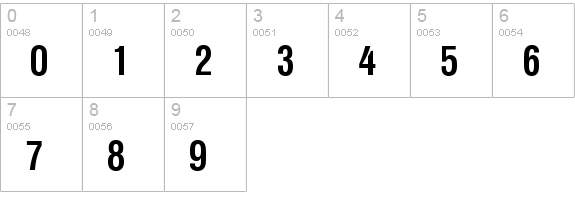
Olympia-DemiBoldCond Font Details
Olympia-DemiBoldCond is a versatile and modern font that strikes the perfect balance between sophistication and readability. Its bold and condensed design exudes confidence and authority, making it ideal for headlines, titles, and other attention-grabbing text. With its clean lines and sharp edges, Olympia-DemiBoldCond commands attention and leaves a lasting impression. One of the best features of Olympia-DemiBoldCond is that it is available for free download at FontsMarket.com. This means that you can easily access this stunning font and use it in your projects without any cost. Whether you're designing a website, creating promotional materials, or crafting a logo, Olympia-DemiBoldCond is sure to elevate your work and give it a professional edge. Don't miss out on the opportunity to enhance your designs with the striking Olympia-DemiBoldCond font. Download it for free today and see the difference it can make in your projects!